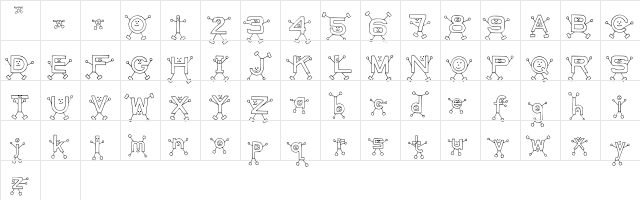
Letter People Things Regular
Design Context for Letter People Things Typeface
Letter People Things is a composed and adaptable typeface that performs quietly and consistently across a wide range of design contexts. The delicate stroke weight brings airiness and refinement to layouts.